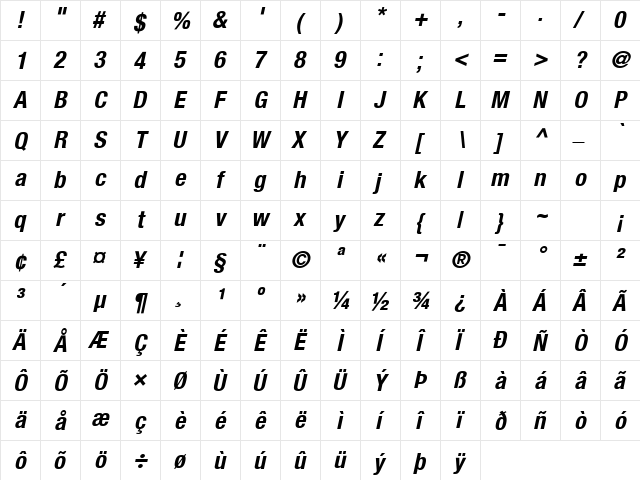
Context Reprise Condensed SSi Bold Condensed Italic Font Preview
Design Context for Context Reprise Condensed SSi Typeface
Context Reprise Condensed SSi offers clean, dependable letterforms without strong stylistic allegiance, making it a practical choice for designers who need flexibility. The slanted form adds forward momentum and visual energy. Its bold stroke weight gives it real presence on the page. Its narrow stance lets it pack a punch even in space-constrained designs.